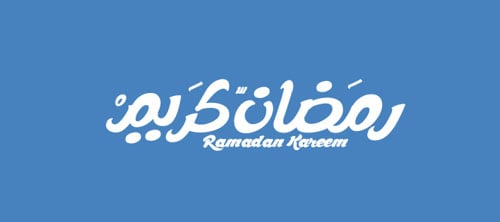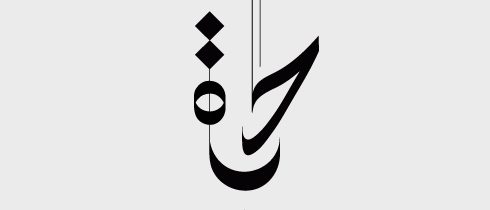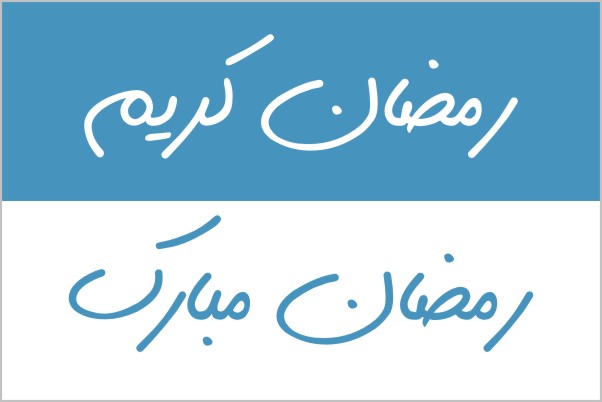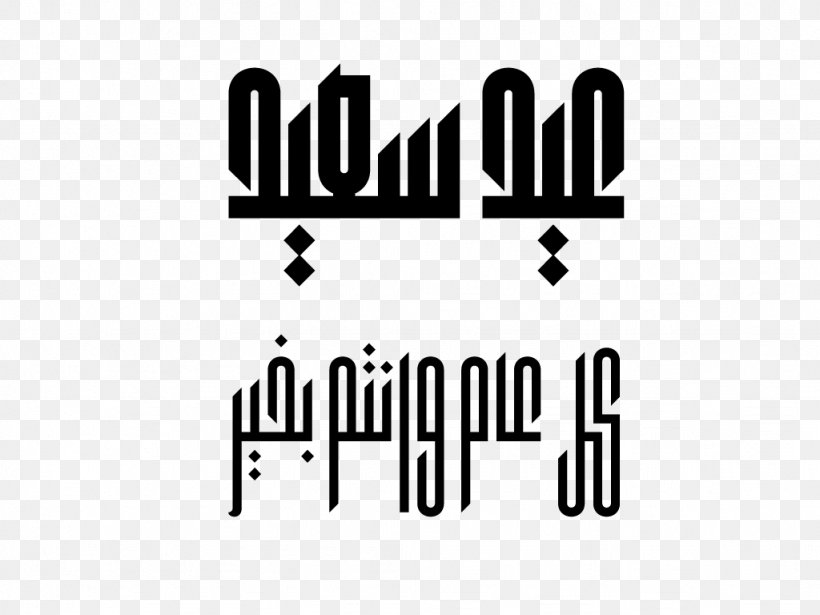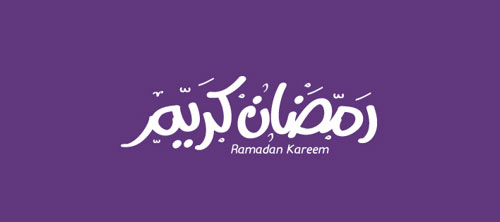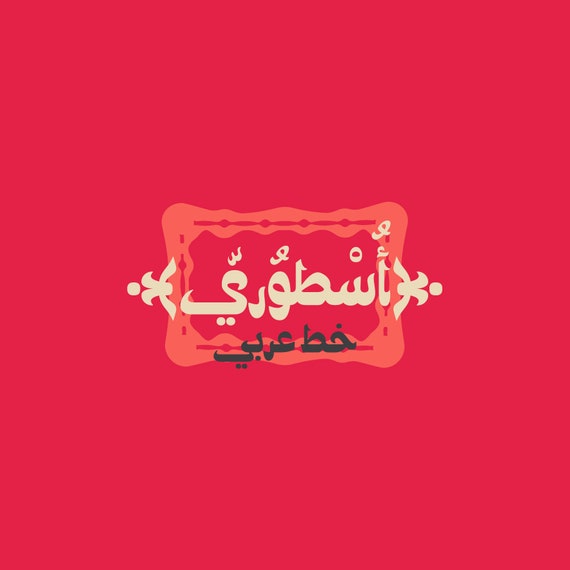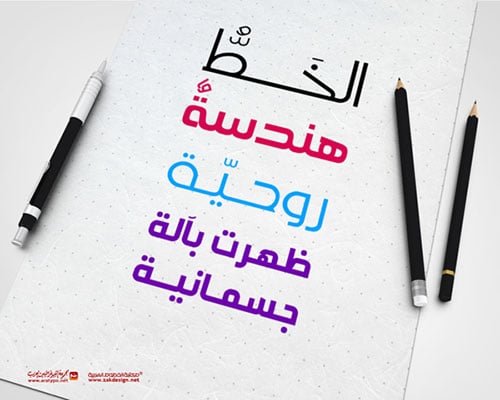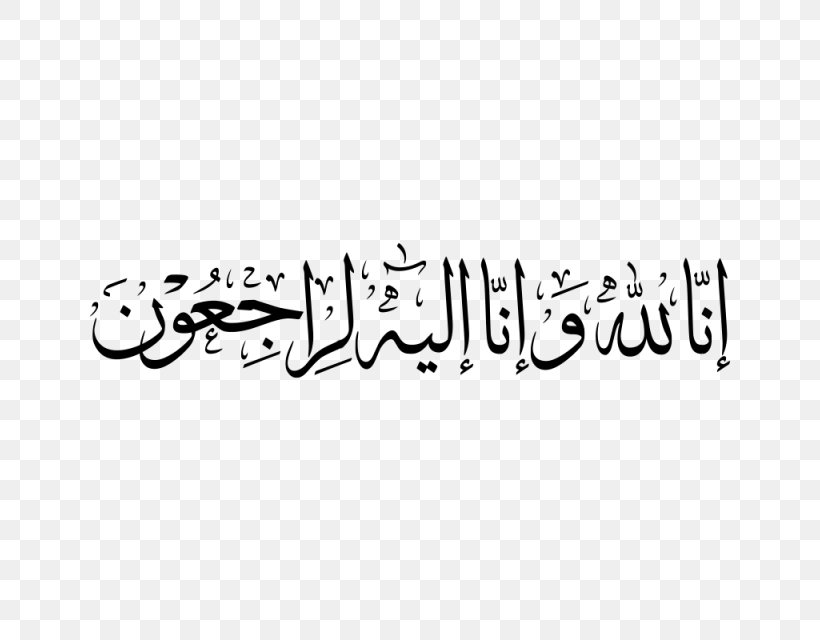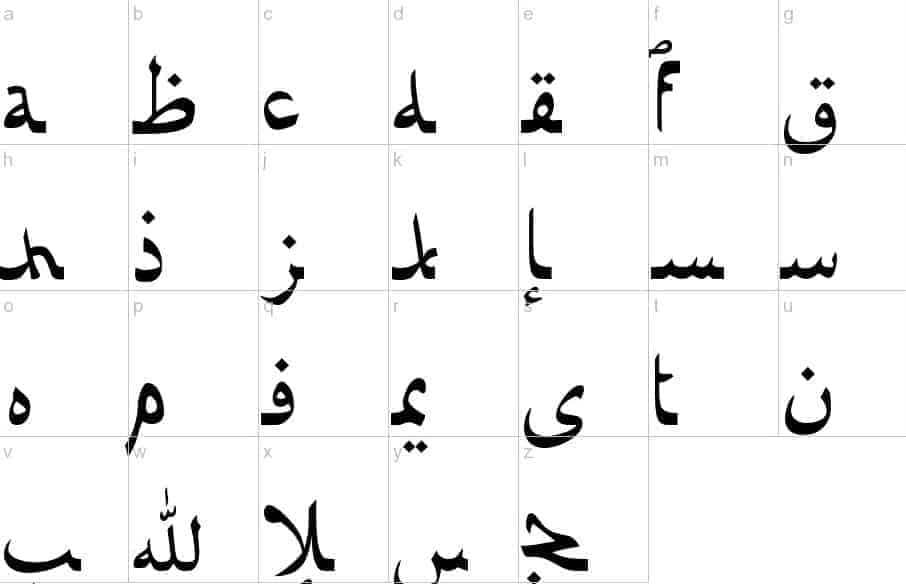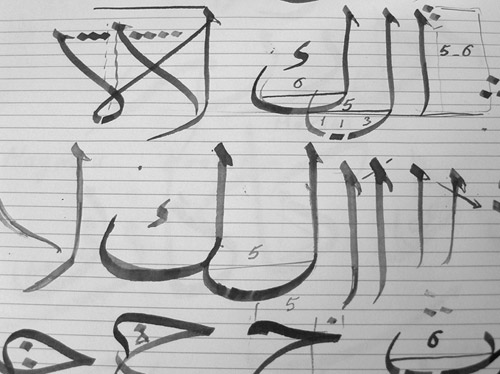
1001 Free Fonts offers the best selection of Ramadan Kareem Fonts for. Calligraphy fonts resemble elegant handwriting.
Calligraphy is an ancient writing technique using flat edged pens to create artistic lettering using thick and thin lines depending on the direction of the stroke.
Calligraphy arabic fonts. The font has a 3D design and appearance and is set on a dark pink background which ups its attractiveness a great deal. Its also uses in quran writing. 1 font style from 7900.
Its one of the oldest handwritten arabic fonts. 30 Free Vector Ramazan Mubarak Ramadan Kareem Arabic Calligraphy Fonts Ramadan Kareem Ramadan Arabic Calligraphy. The words written are in blue and yellow color.
However either western calligraphy or Chinese or Arabic calligraphy they have strict rules and shapes with a geometrical order of lining on the page each character with a precise stroke order. Jazayeri Kufic Shoushtar by Arabetics. Moreover Our fonts are very rich and of high quality.
See more ideas about islamic calligraphy arabic calligraphy art calligraphy art. Also it is used when a contemporary and simple look is desired that can fit with the characteristics of Kufi fatmic where horizontal parts are equal than vertical ones. We have researched and chosen the top-rated Arabic fonts - Hacen Tunisia Lt Regular Iranian Sans Regular URW DIN Arabic Demi AXtGIhaneBold Regular IRANBlack Regular.
Just take a look at these top five collections and see if maybe the right font was just hiding here all along. Nuqta On Twitter Calligraphy Art Arabic Calligraphy Art Urdu Calligraphy. The fluidity of Arabic script offer indefinite possibilities for designing calligraphic expressions even within a single word since letters can be stretched and transformed in numerous ways to create different motifs.
This Arabic font template features a bold calligraphy font. 1 font style from 7900. Assalam O Alaikum every one Today I have started a series in which I will write the name of Muhammad SAW in different Arabic f.
The height of calligraphy was reached in the middle age where monks developed the narrow writing style called gothic allowing more words to fit on a single line as paper was expensive at the time. HS Almajd is an Arabic calligraphy font under titles category. For different scripts for example Chinese or Arabic they have developed their own way of calligraphy.
Diwan Bent Font is spreadly used in islamic calligraphy. خط الديوان Diwan Font for photoshop creation. Jude Arabic Calligraphic Script.